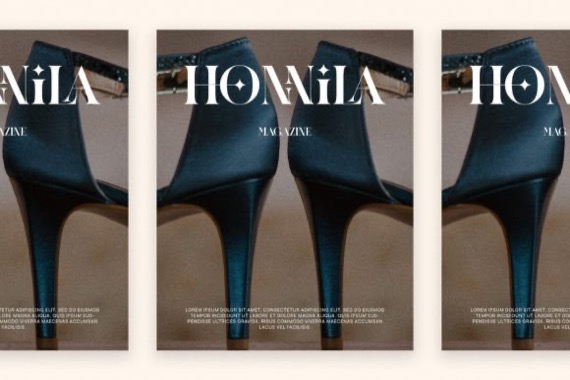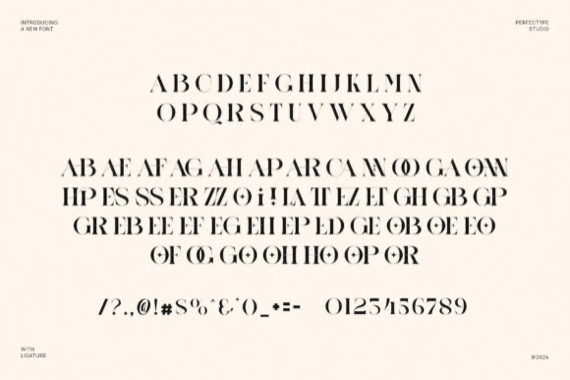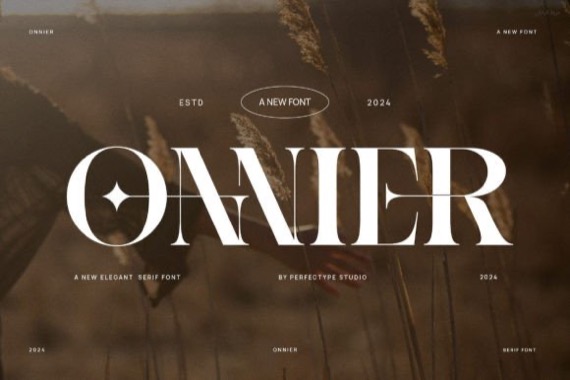
Onnier Font
by Perfectype
Onnier is a modern and fancy serif font perfect for banners, magazines, logos, book covers, posters, and more. This type of font is very suitable for your various needs such as branding projects, logos, wedding designs, social media posts, advertisements, product packaging, product designs, labels, photography, watermarks, invitations, stationery, and any project, created with high level of readability.
Onnier Serif Font